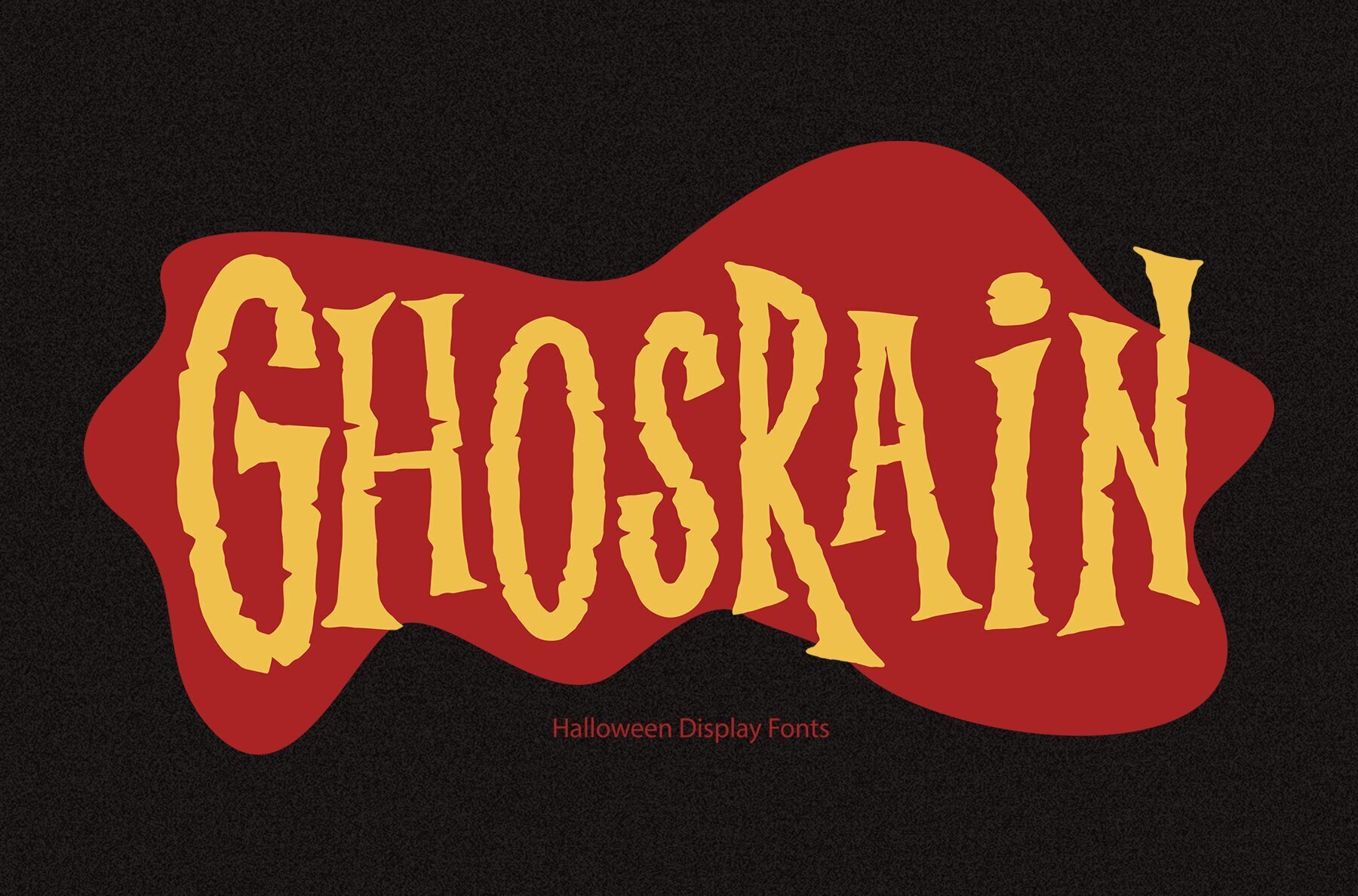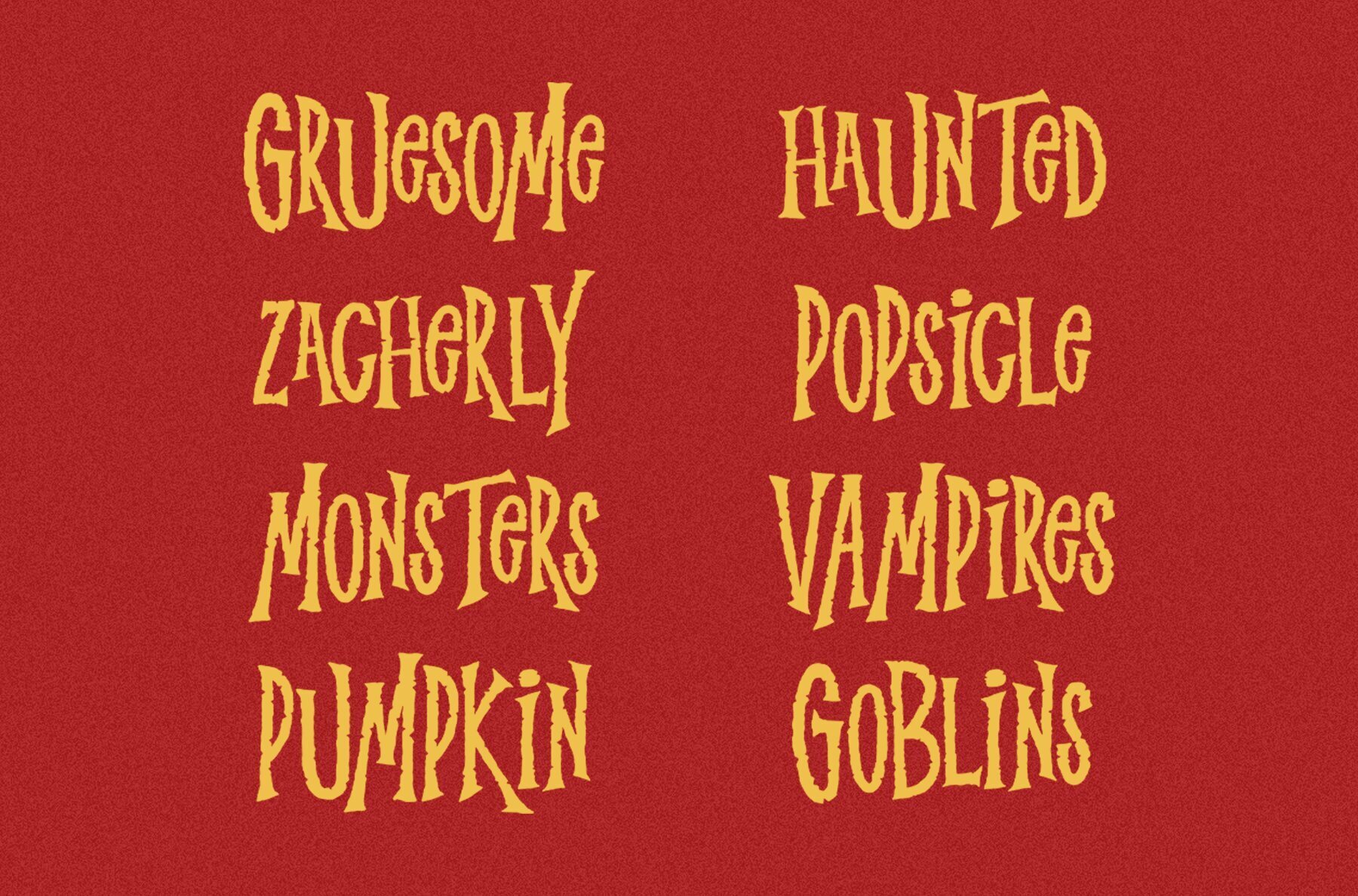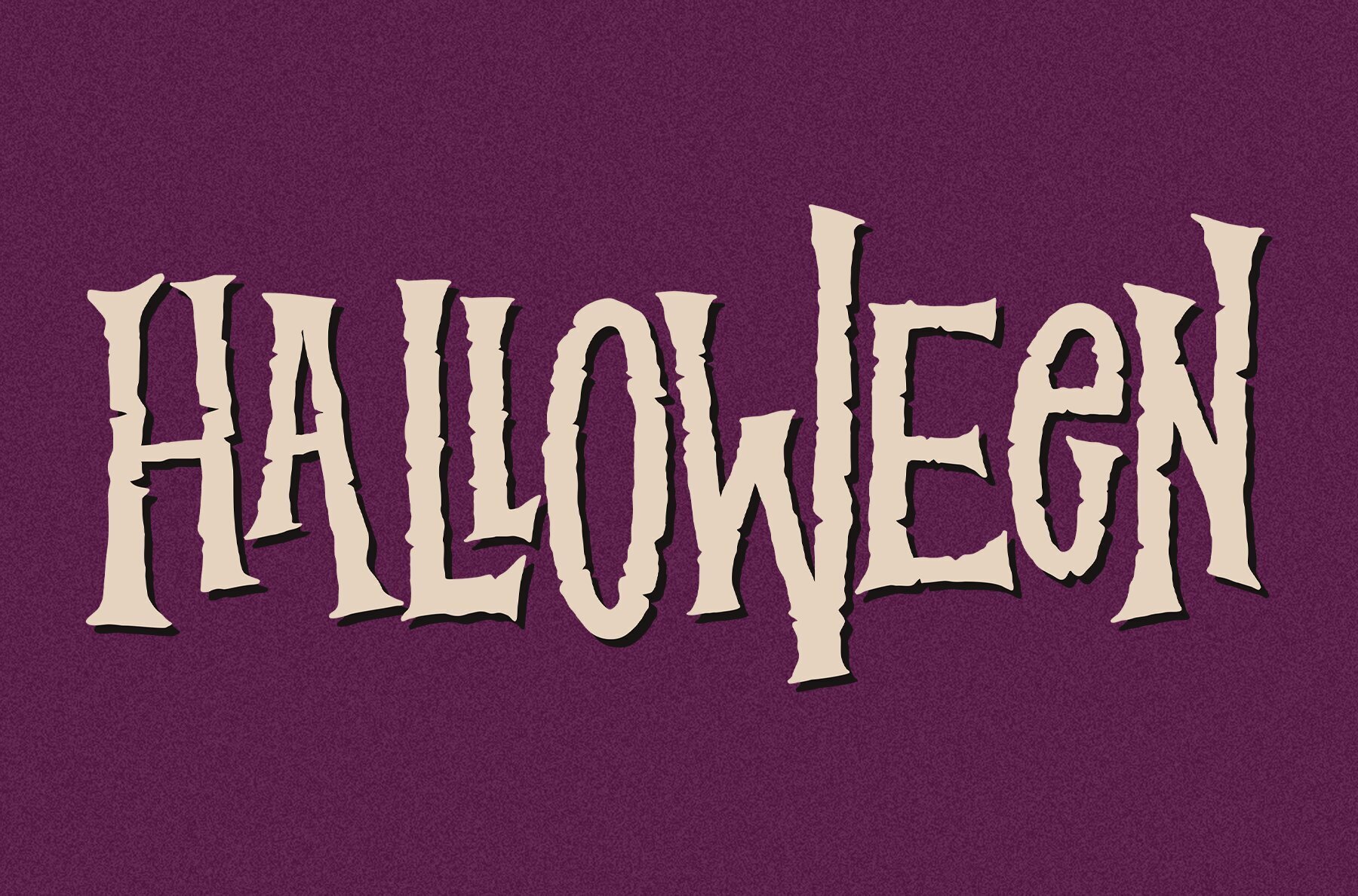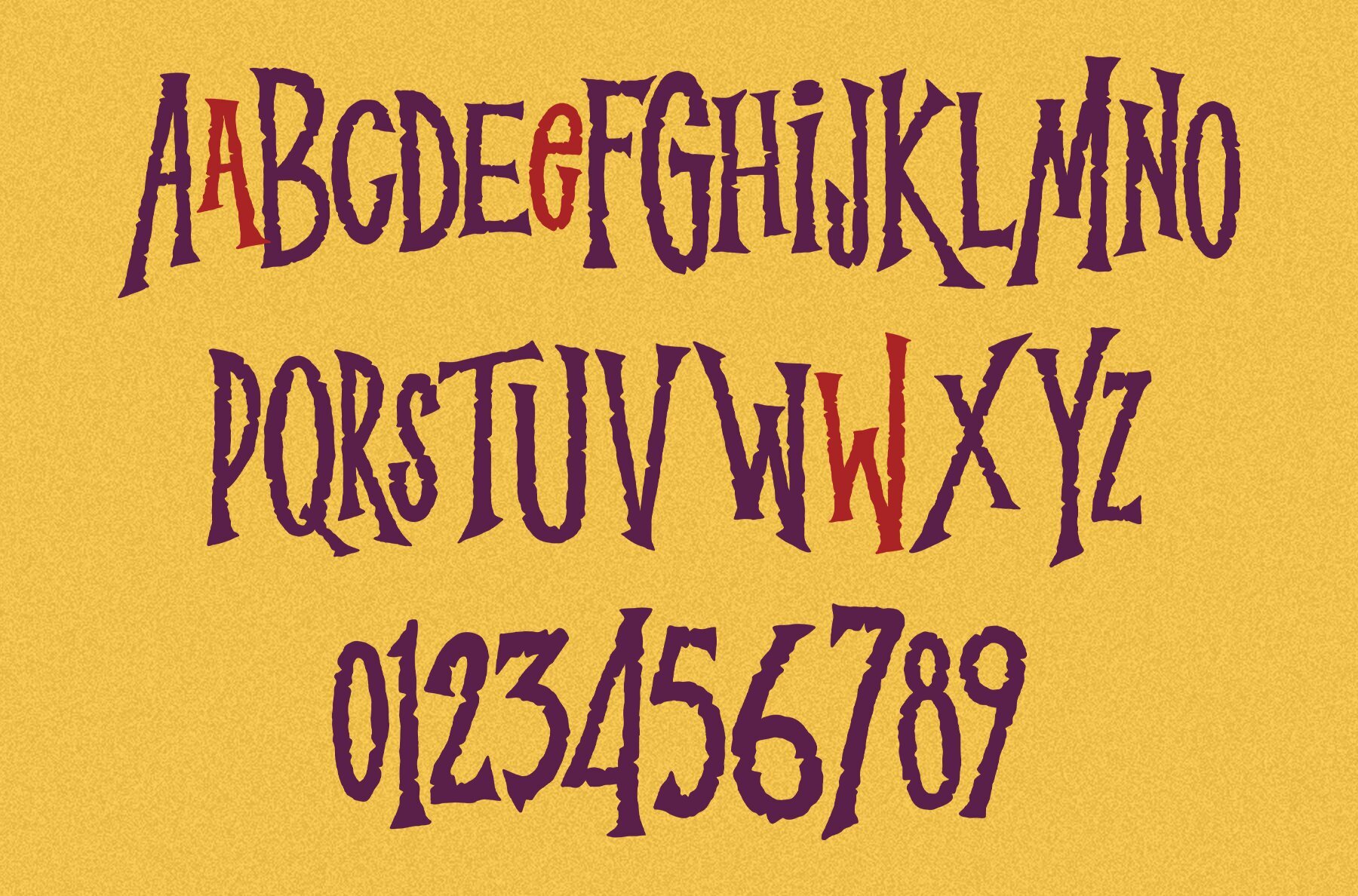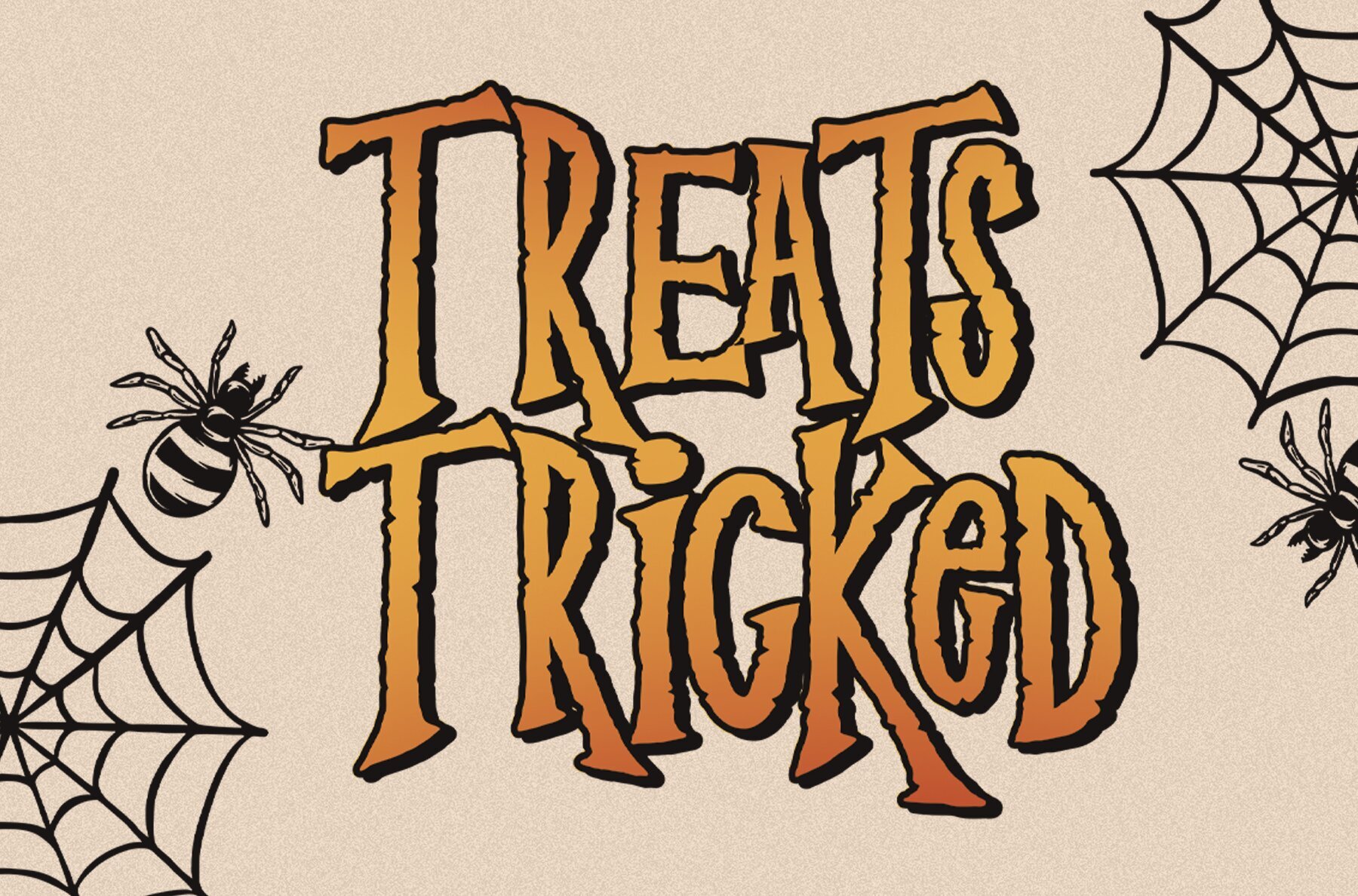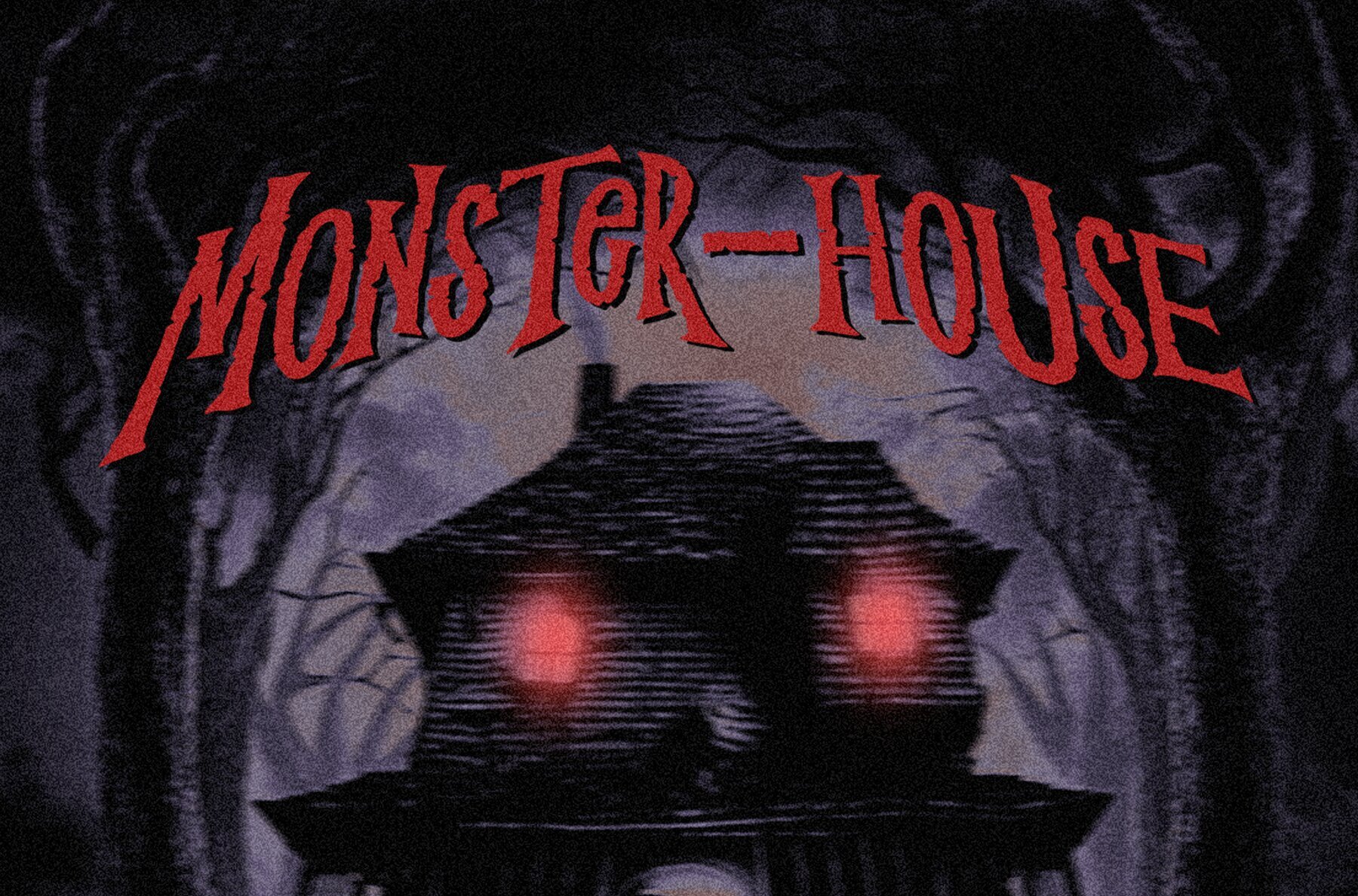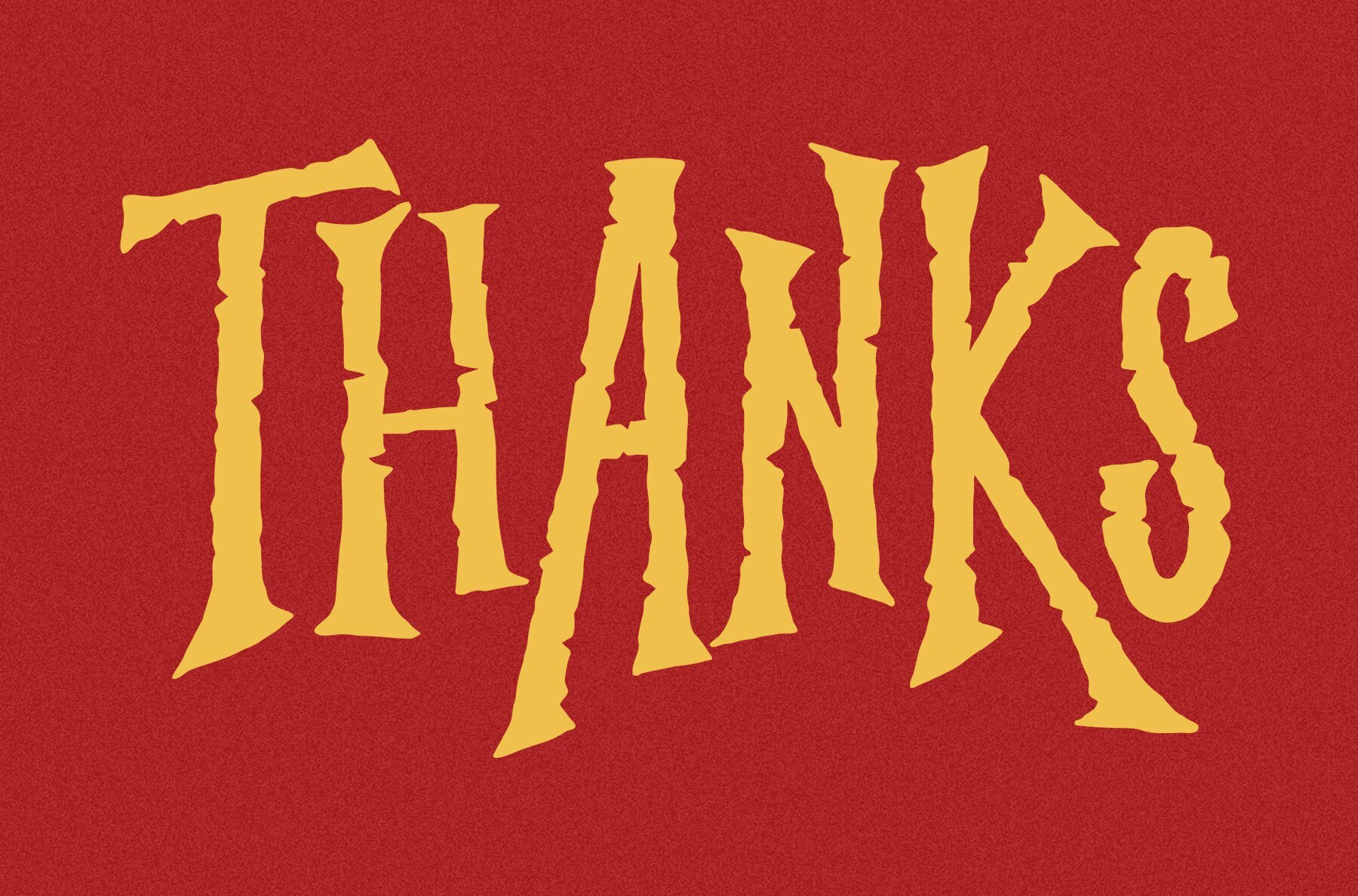
Ghosrain Font
Ghosrain is a uniquely eerie display font, ideal for all your Halloween-related projects and creative endeavors. Its spooky aesthetics make it a perfect choice for designing chilling posters, eye-catching flyers, and other seasonal visuals. The font captures the essence of Halloween with its haunting style, ensuring your designs stand out in any festive setting.
Crafted to complement any haunting theme, Ghosrain adds a distinctive touch to your projects. Whether you're creating party invitations, decorating haunted houses, or crafting spine-chilling digital content, this versatile font fits seamlessly. Its dramatic flair and creepy vibe make it a must-have for designers looking to invoke the true spirit of Halloween.